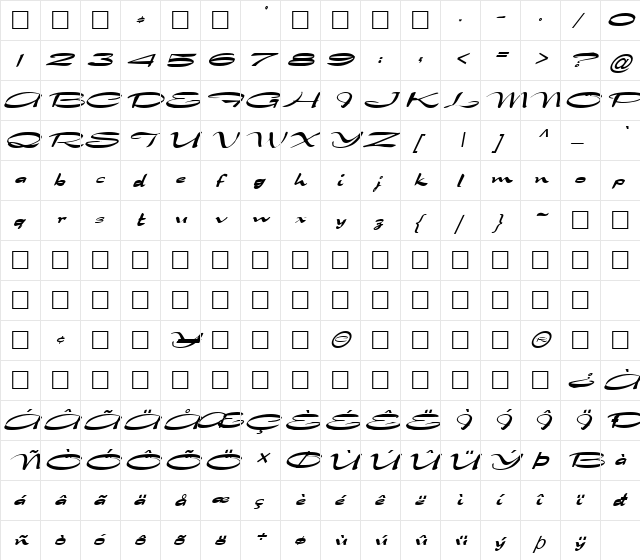
FZ JAZZY 30 ITALIC Normal
Design Context for FZ JAZZY 30 ITALIC Typeface
FZ JAZZY 30 ITALIC is a composed and adaptable typeface that performs quietly and consistently across a wide range of design contexts. The dynamic lean of this cut emphasises speed and emphasis in any layout.
Pro Tip: Use FZ JAZZY 30 ITALIC for emphasis, pull quotes, and subheadings where its slanted energy can add rhythm to the layout.